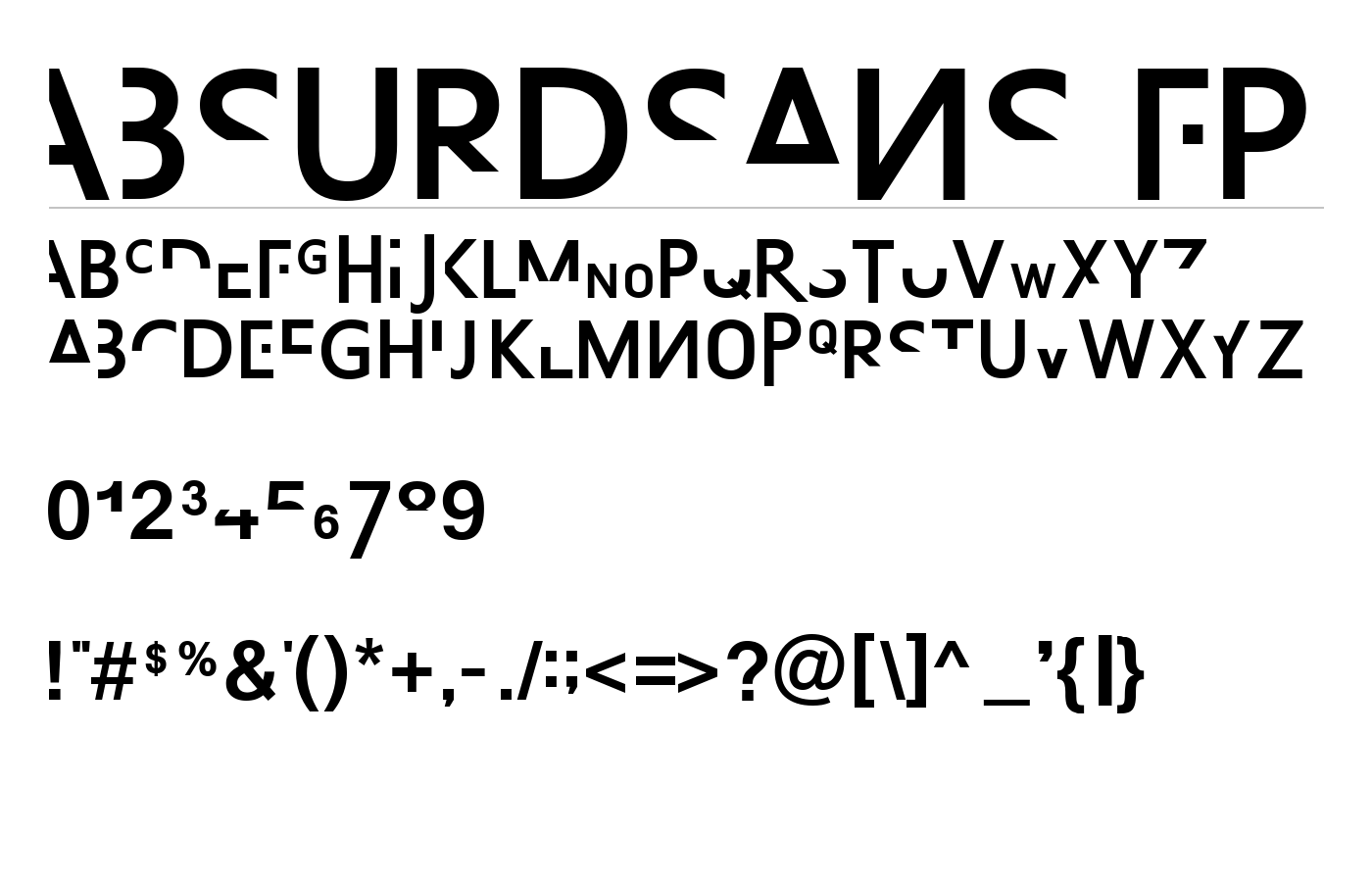
Absurdsans FP is a bold, modern sans serif font with a unique, geometric design that features playful, distorted letterforms and sharp angles. Its strong contrasts and unconventional shapes give it an avant-garde, futuristic feel, making it perfect for edgy branding, headlines, and creative projects that want to stand out with a bold statement. This font works well in digital and print contexts where grabbing attention and expressing individuality is key.
Absurdsans FP Font
About Absurdsans FP Font